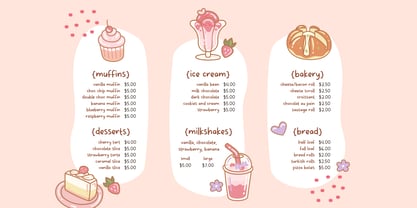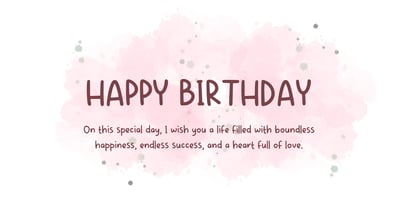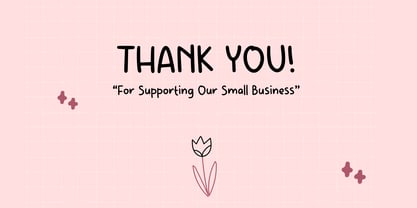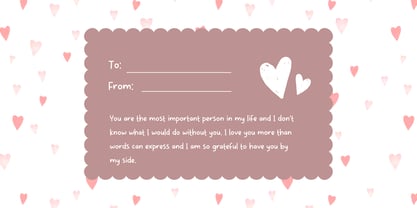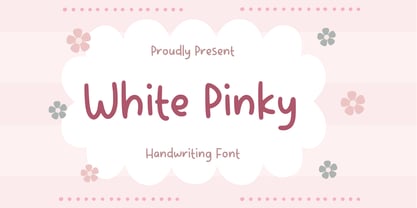
White Pinky
by Aisyah
The White Pinky Font Family was designed by Nur Aiysah Amalia and published by Aisyah. White Pinky contains 1 styles.
Introducing "White Pinky", a charming and delightful handwriting-style font, perfect for adding a touch of sweetness to your creative projects. This font is ideally suited for love letters, crafting and lengthy text, making every line brimming with darling elegance. If you are looking to infuse your work with charm, "White Pinky" is perfect for all things cute and adorable.
Designers: Nur Aiysah Amalia
Publisher: Aisyah
Foundry: Aisyah
Design Owner: Aisyah